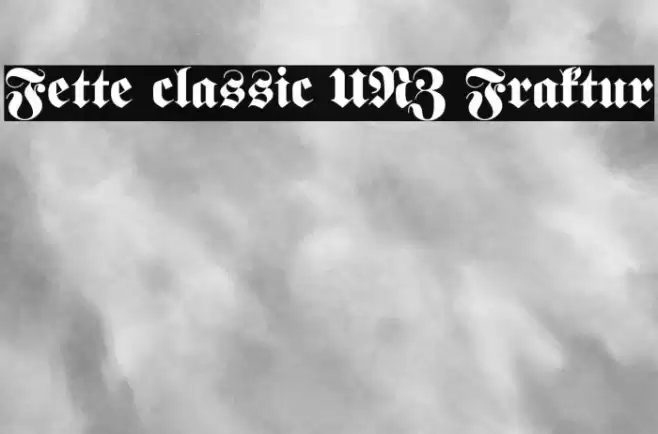
Fette classic UNZ Fraktur Font
Fette classic UNZ Fraktur Description
This font is a striking example of Blackletter typography, characterized by its intricate and ornate design. The letters feature sharp, angular lines and elaborate curves, reminiscent of traditional Gothic script. Each character is crafted with a high level of detail, making it ideal for creating a dramatic and historical aesthetic. The uppercase letters are particularly bold and commanding, while the lowercase letters maintain a consistent style that complements the overall design. The numerals and special characters are equally stylized, ensuring a cohesive look across all text elements. This font is perfect for projects that require a touch of elegance and tradition, such as formal invitations, certificates, or branding for luxury products.
A bold and intricate Blackletter font with a traditional Gothic style from Uncategorized fonts.
- Proposed Projects: Ideal for formal invitations, certificates, luxury branding, and historical-themed designs.
- Overall Style: Classic